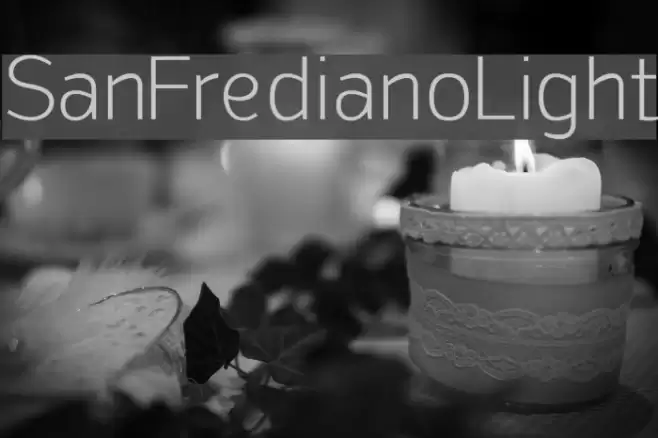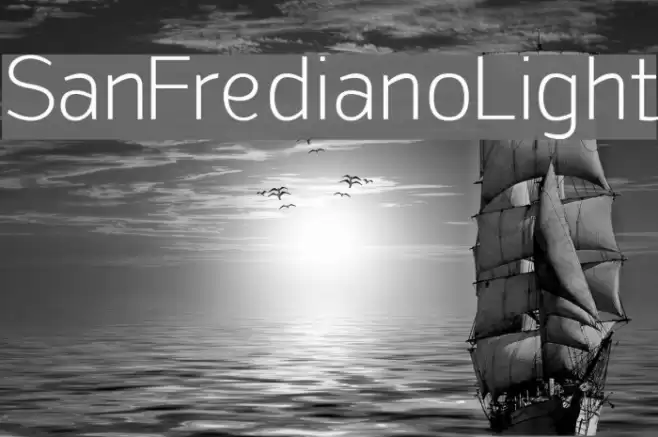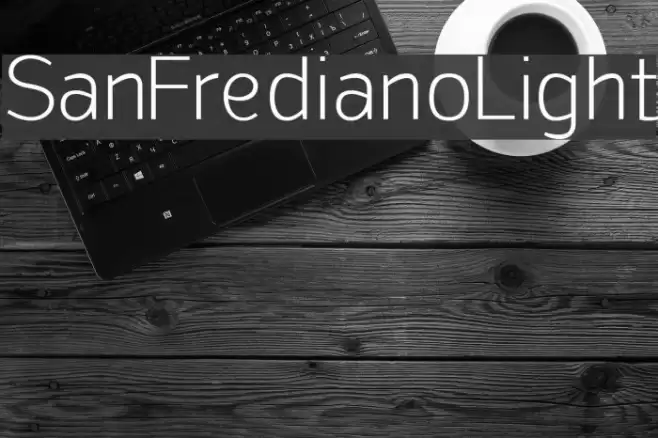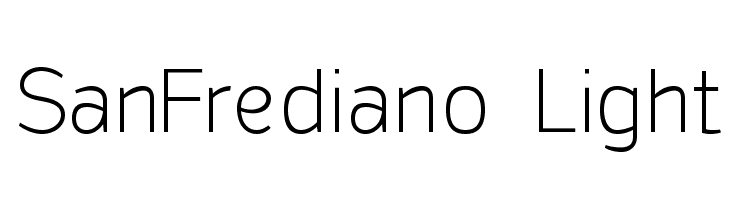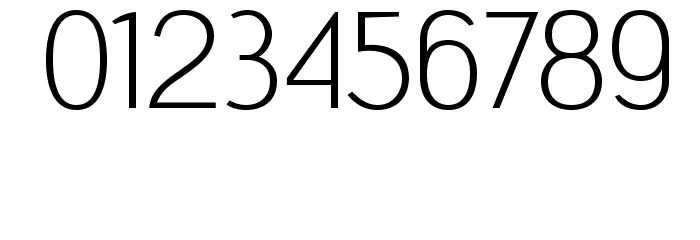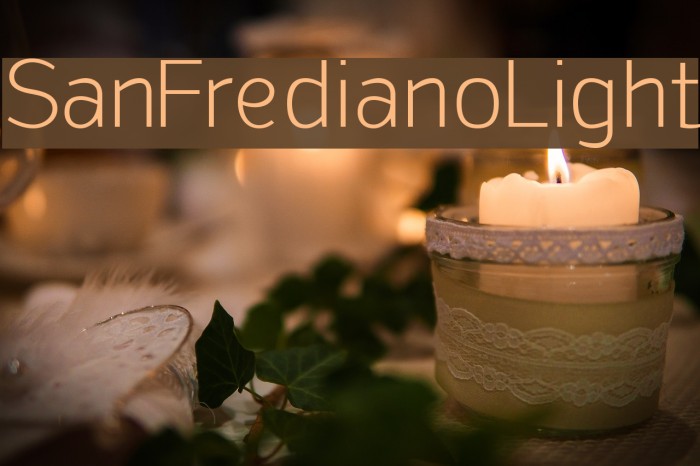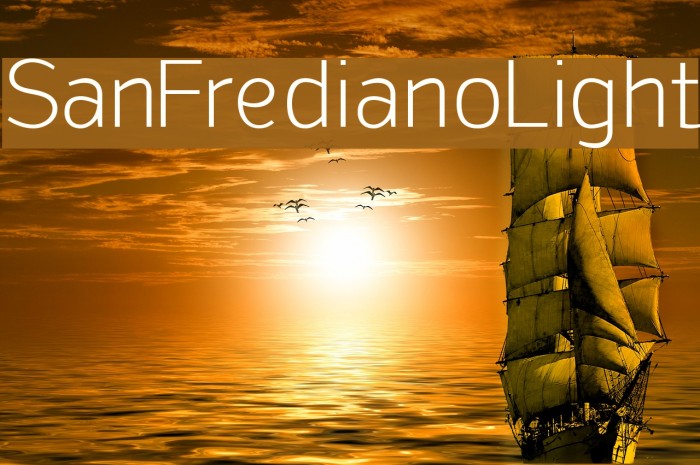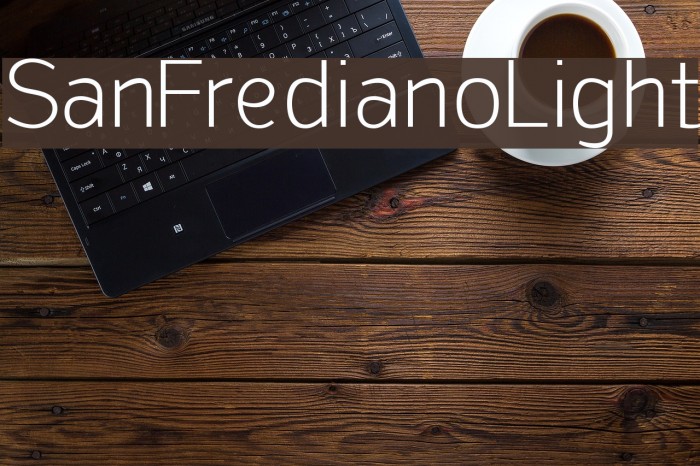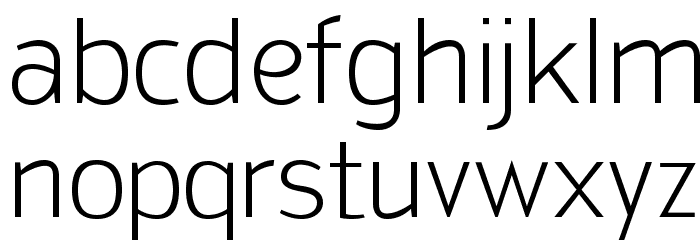
SanFrediano-Light
This font features a clean and modern design with a sans-serif style. The characters are sleek and minimalistic, offering a contemporary look that is both professional and approachable. The uppercase and lowercase letters maintain a consistent height and width, providing a harmonious and balanced appearance. The numerals are clear and easy to read, making them suitable for various applications. The overall design is versatile, making it ideal for both digital and print media. The font's simplicity and elegance make it a great choice for projects that require a modern and understated aesthetic.
A modern, sans-serif font with a clean and minimalistic design.
- Proposed Projects: Ideal for branding, web design, corporate materials, and editorial layouts.